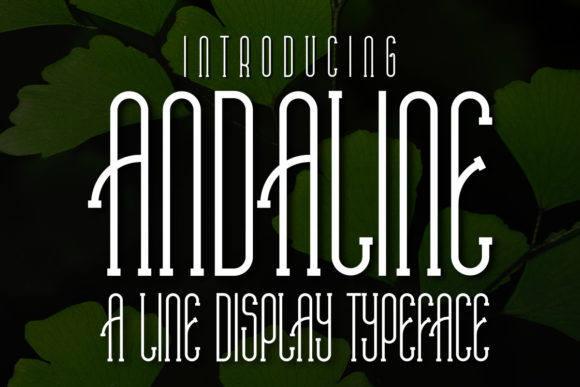
Prepare yourself to be mesmerized by Andaline, the captivating serif font that dances across your screen, inviting you on a journey of creativity. With Andaline, your designs will blossom into masterpieces, turning heads and sparking conversations. Its unique charm lies in its ability to blend classic elegance with a contemporary twist, making it the perfect choice for those who dare to stand out.
With Andaline, you can effortlessly create apparel that speaks volumes, mugs that radiate warmth and personality, invitations that ignite anticipation, and banners that command attention. Its versatility extends to branding and logos, where it can infuse your brand with a distinct identity that resonates with your audience. Andaline is the key to unlocking your creative potential, the gateway to a world where your imagination knows no bounds.
Imagine your words taking on a life of their own, dancing gracefully across your designs with Andaline's intricate curves and playful serifs. Let your creativity soar as you craft designs that capture hearts and ignite imaginations. Join the league of creative visionaries who have embraced Andaline, transforming their projects into unforgettable experiences.